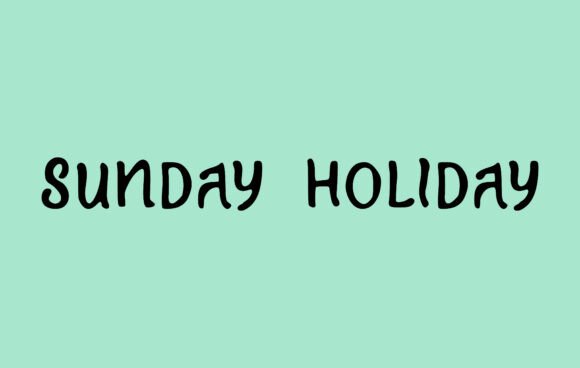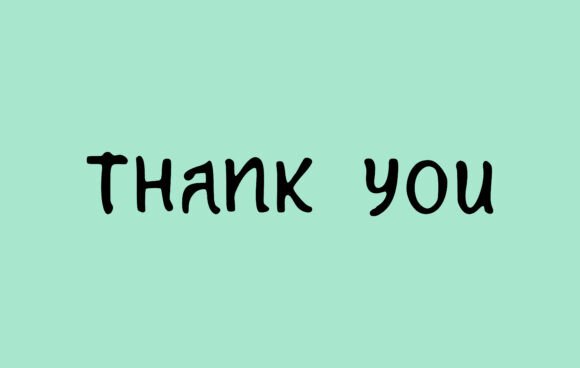
The Perfect Harmony of Handwritten Charm
Have you ever sat down with a blank sheet of paper, a pencil, and a dash of imagination, only to let your creativity flow and turn your scribbles into something truly unique? That’s exactly what happens when you work with the Bouzouki Font – a sweet and friendly handwritten font that lets your designs sing with personality.
Bouzouki Font is more than just a font; it’s a versatile tool designed to bring your creative visions to life. Its natural and unique style makes it incredibly fitting to a wide range of designs, from elegant invitations to playful children’s books. With the Bouzouki Font, the only limit is your imagination – and that’s what makes it so valuable for designers looking to add a touch of handmade charm to their projects.
Bouzouki Font Key Features
- Unique Characteristics: Bouzouki Font features a distinctive, hand-drawn design with a rustic, folk-inspired aesthetic, making it perfect for creating a warm and inviting atmosphere in designs.
Bouzouki Font Review
The Bouzouki Font is an elegant and sophisticated typeface that immediately catches the eye. It’s perfect for adding a touch of Greek flair to your designs. ✨
Here are some of the things that work well in this font:
- Unique aesthetic: Bouzouki Font has a distinct and recognizable look that sets it apart from other fonts.
- Legibility: The font is clear and easy to read, even at smaller sizes.
Overall, I think Bouzouki Font is a great choice for designers looking to add a touch of elegance and sophistication to their work. While it may have some limitations, its unique aesthetic and legibility make it a worthwhile investment. With a little caution and planning, you can use Bouzouki Font to create stunning designs that will impress your clients and audience.
Tips for Getting the Most Out of the Bouzouki Font
Use the Bouzouki Font in conjunction with other fonts to create a unique and eye-catching design.
The Bouzouki Font is ideal for designs that require a touch of Greek or Mediterranean flair, such as:
Restaurant or cafe branding